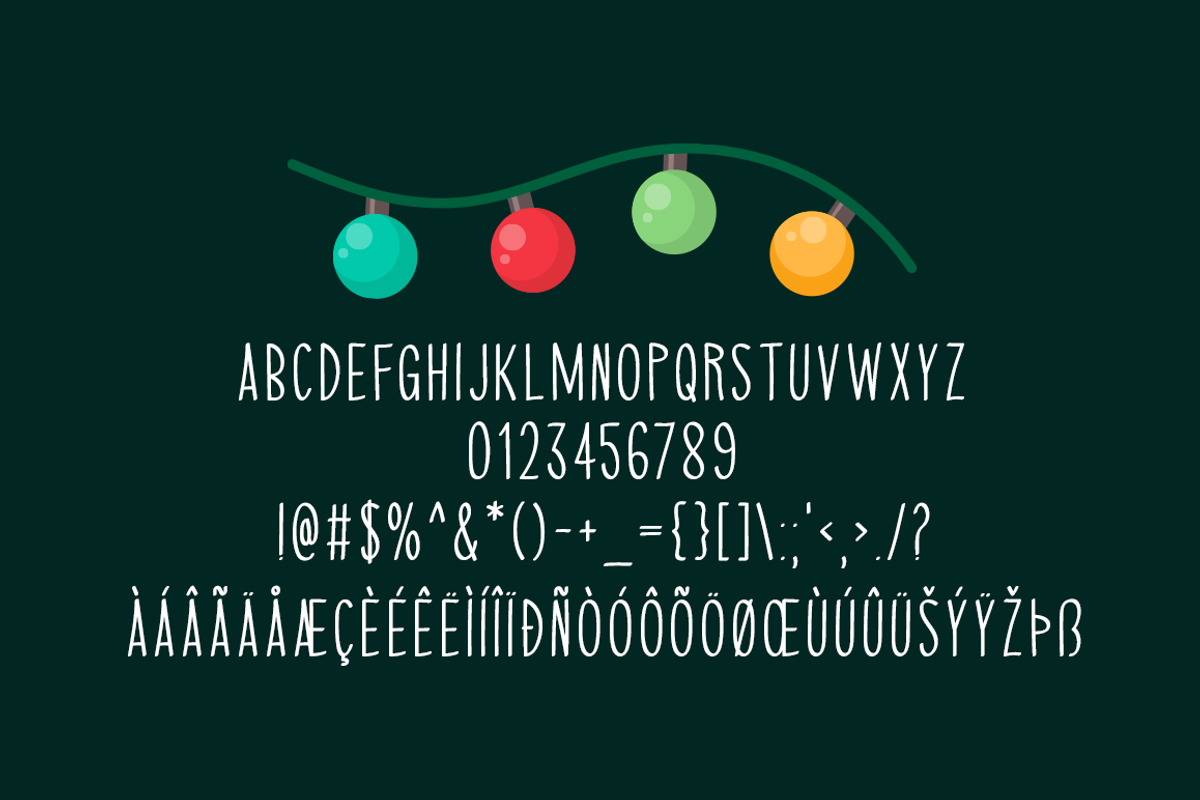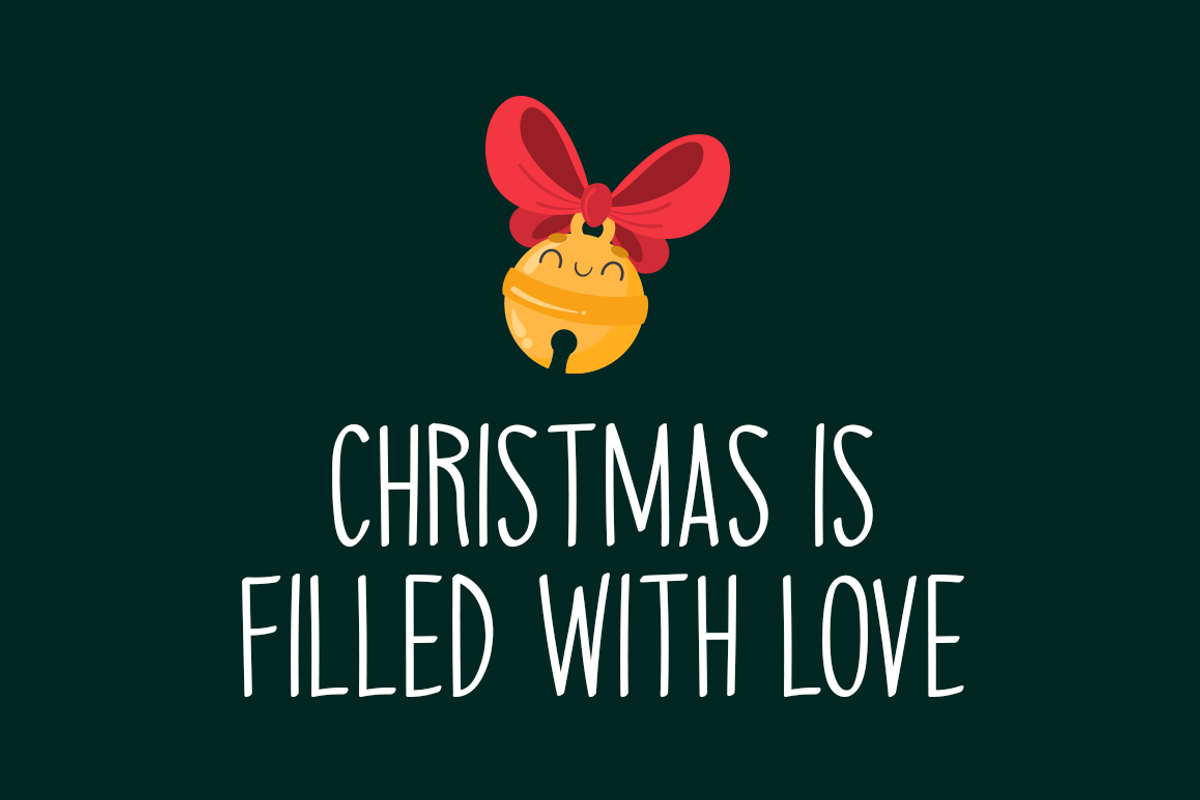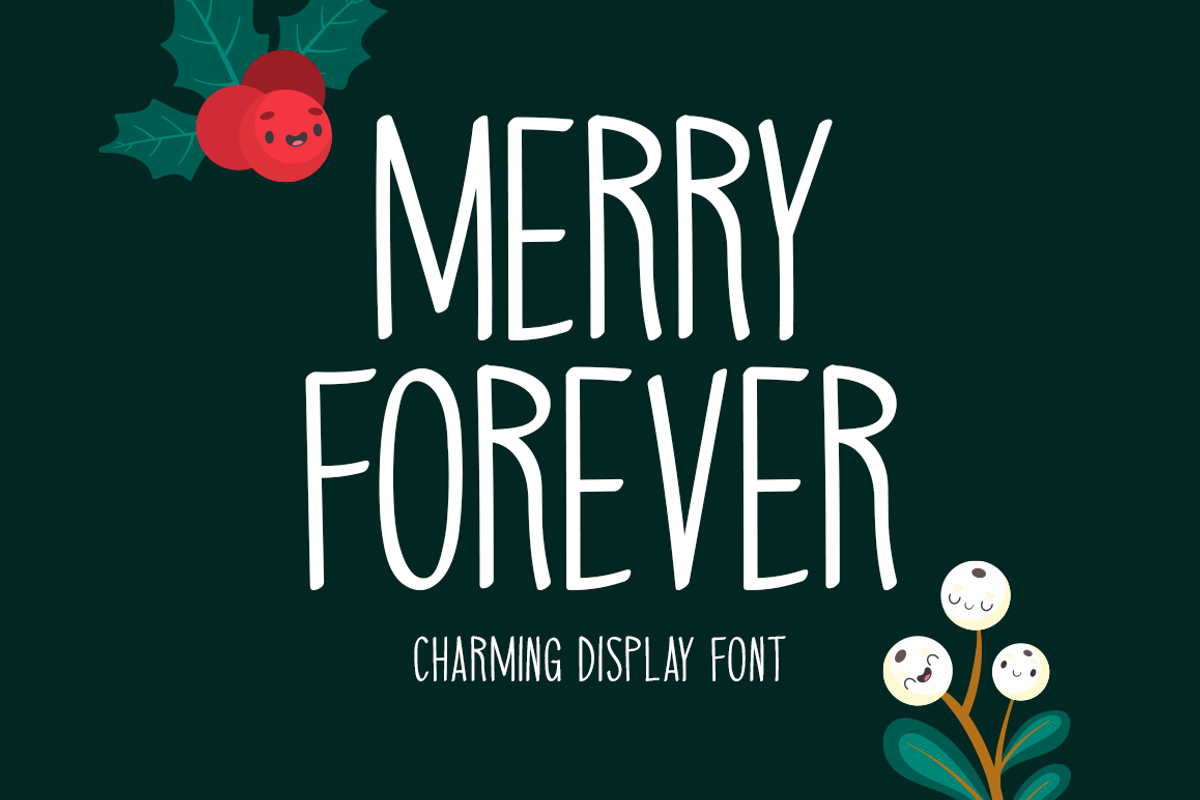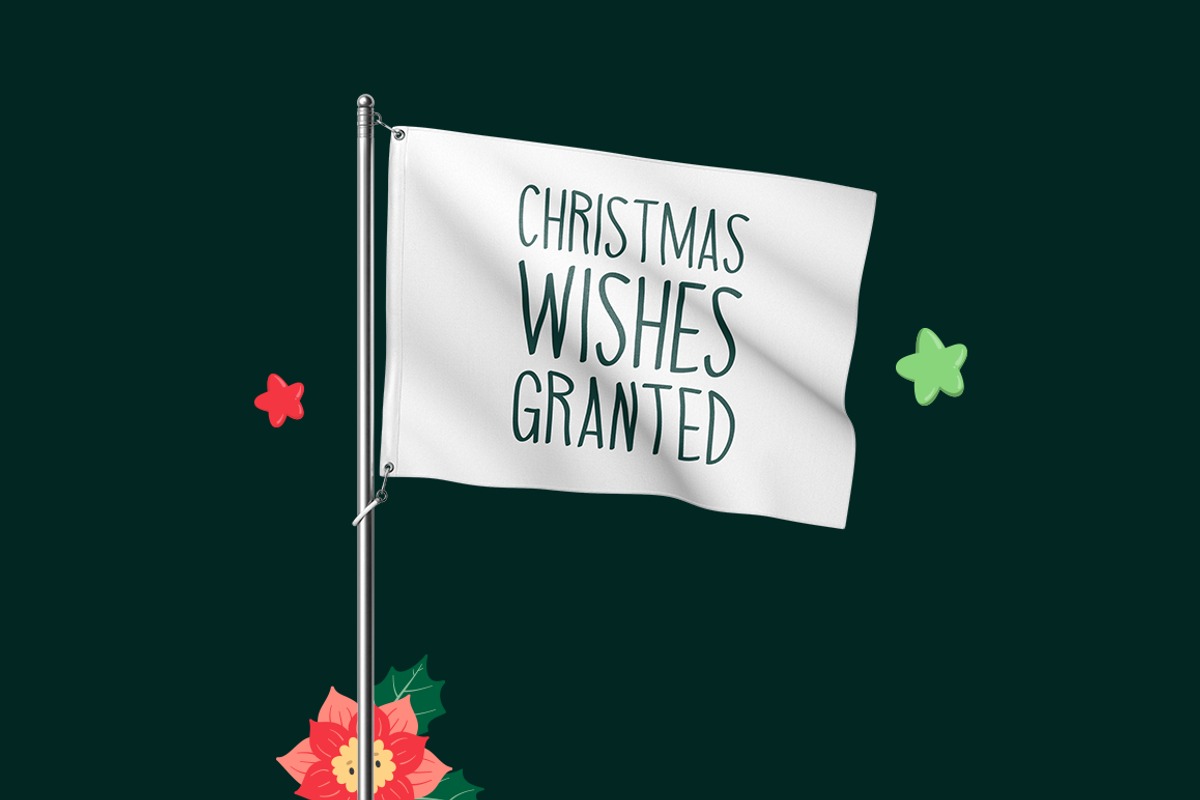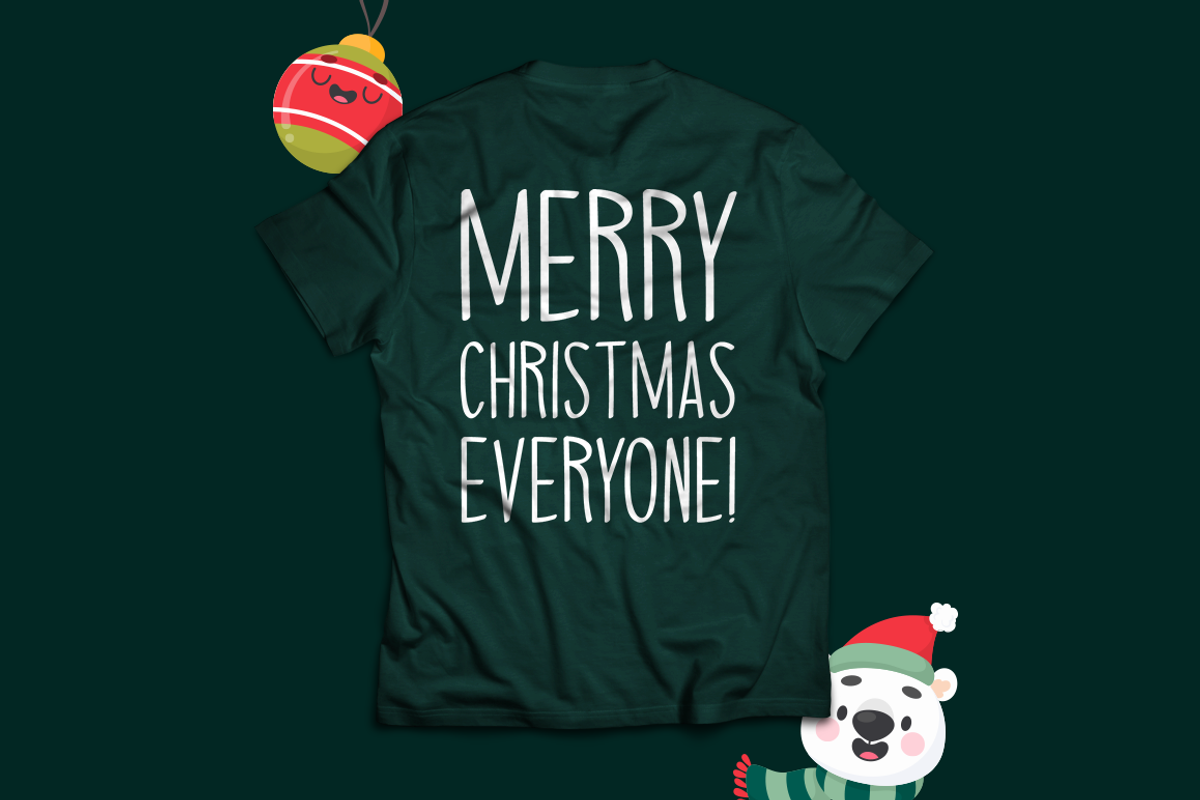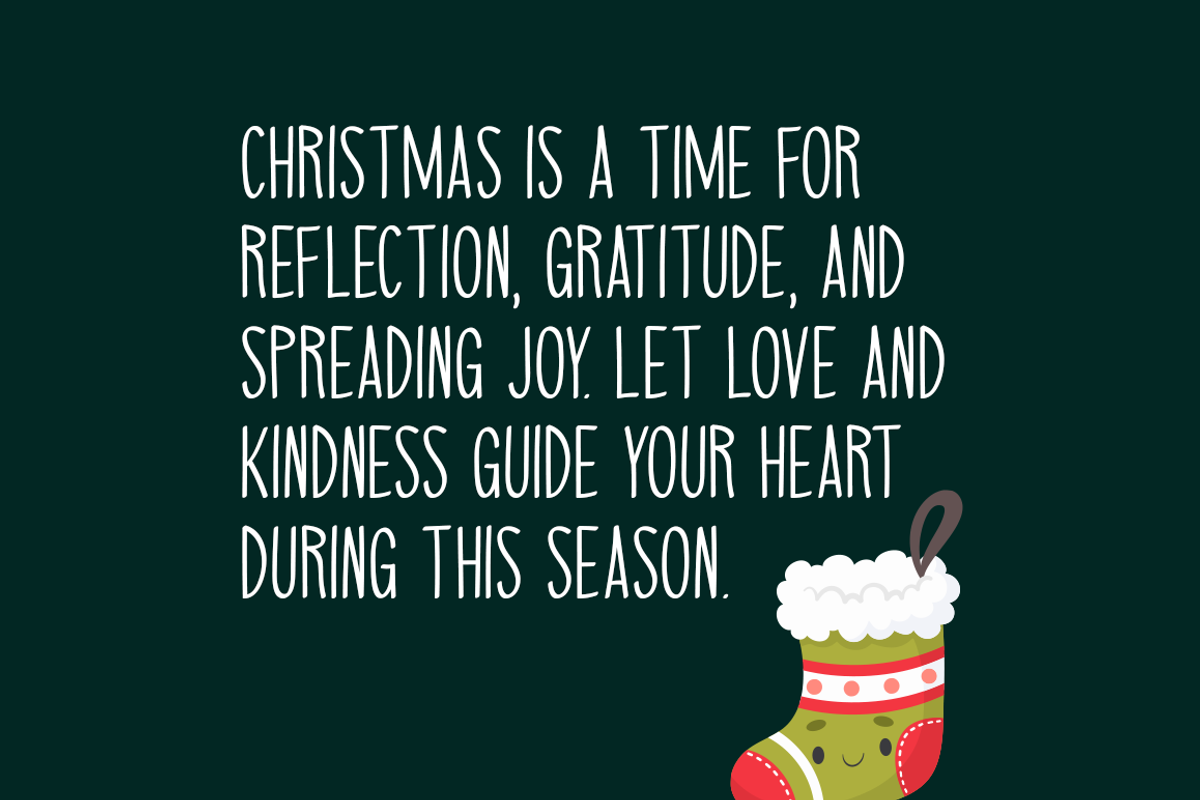
Merry Forever Typeface
Introducing Merry Forever!
Merry Forever is an enchanting display font that has just arrived on the scene, offering a delightful blend of charm and elegance. This versatile typeface is perfect for a wide range of creative projects, from personalized stationery and unique logos to trendy t-shirts and impactful print designs. Whether you're designing website headers, stylish photo frames, engaging flyers, or striking music covers and posters, Merry Forever is sure to elevate your work to new heights.